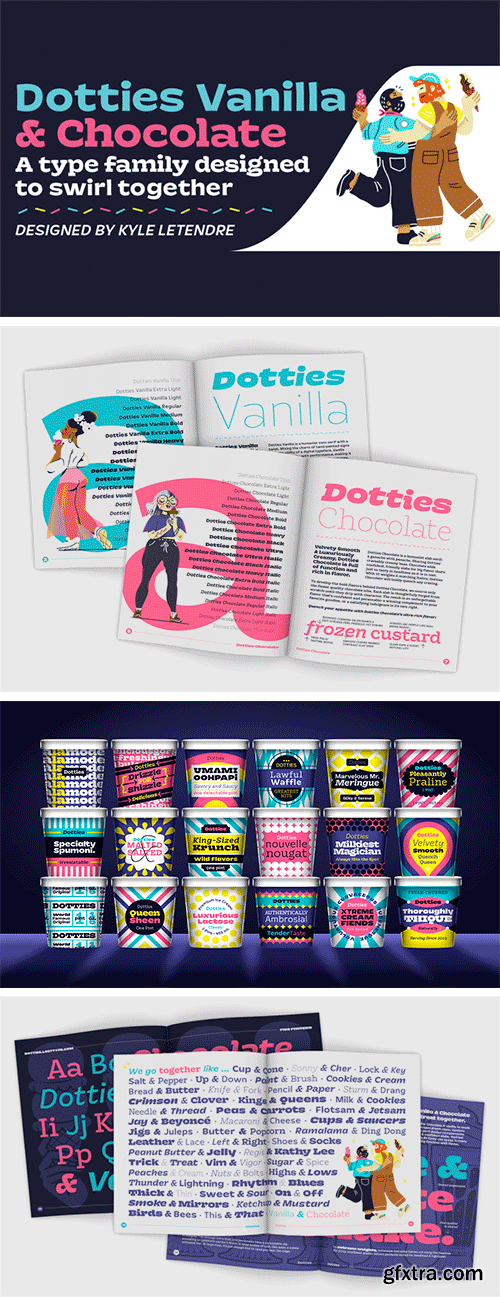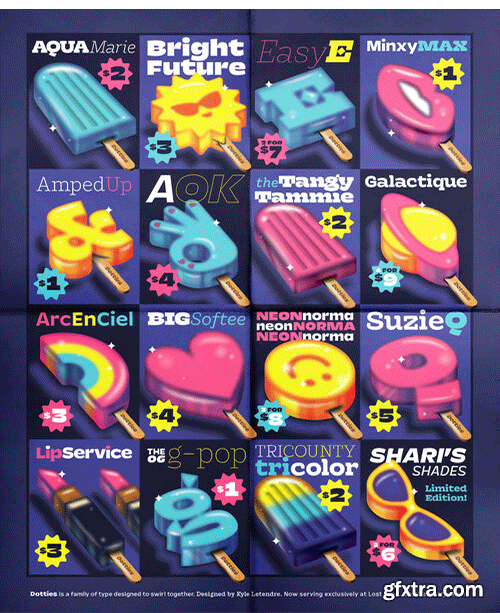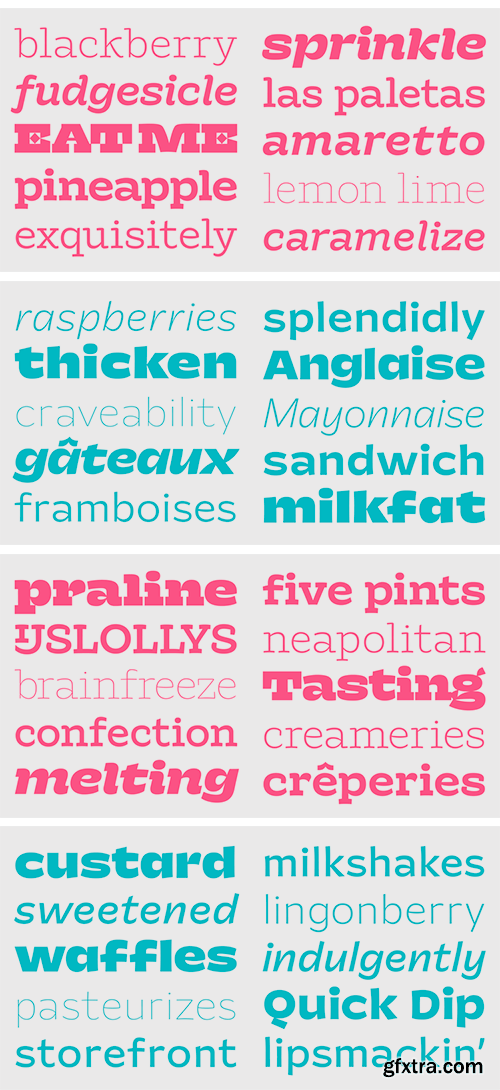
Dotties Font Family
Inspired by hand-painted signs in the midwest, Dotties fuses the charm of a small town ice cream shop with the utility of a digital typeface. Dotties Vanilla is a lively sans serif, built to pair effortlessly with the confident slab serifs of Dotties Chocolate. With ten weights each and matching Italics, Dotties Vanilla and Chocolate form a harmonious smörgåsbord that’s big on function and full of flavor.
Dotties Vanilla is a humanist sans serif with a twist. With its bold buttercream body and sumptuous curves, Dotties Vanilla is easy on the stomach and even easier on the eyes. And thanks to its versatile flavor, Dotties Vanilla plays well with others, or it’s darn good on its own too. Dotties Chocolate is a humanist slab serif: a ganache with panache. Sharing Vanilla’s craveably creamy base, Chocolate adds confident, friendly slabs for big flavor that’s just as tasty in headlines as it is in text. With 10 weights and matching Italics, Dotties Chocolate will boldly quench any craving. Dotties is designed for Chocolate & Vanilla to work together like an ice cream dream team. The two flavors share a creamy flat brush construction and similar proportions, plus punctuation and numerals for effortless pairing. Swirled together, the family’s 40 fonts can speak in many cohesive voices. Dotties always hits the spot.